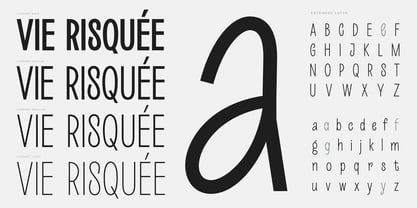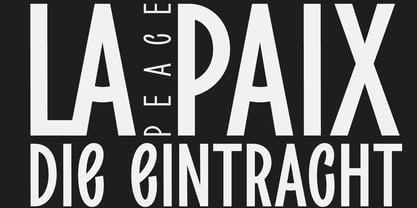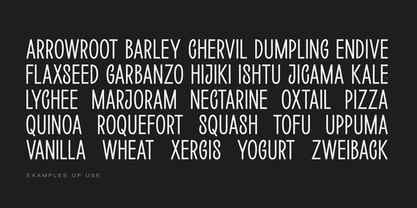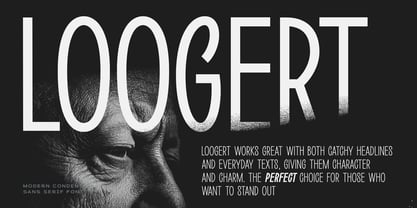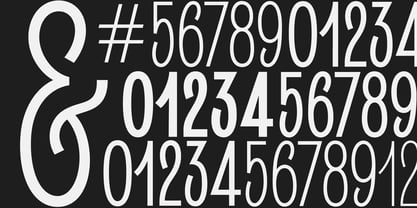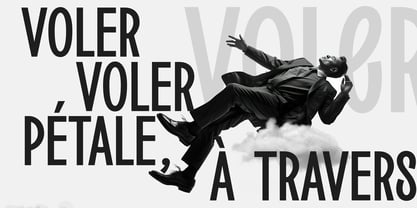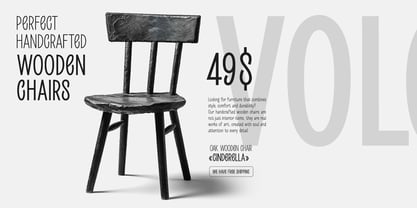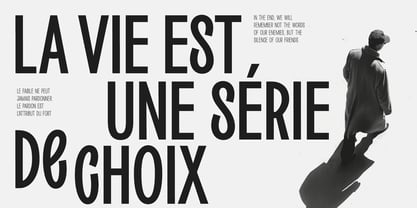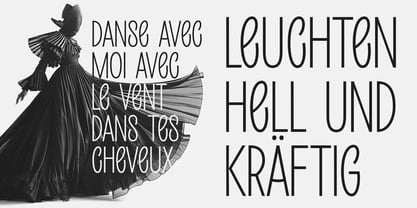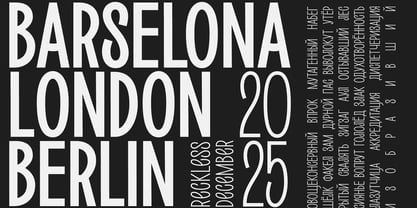
Loogert
von Oleg Gert
Die Schriftfamilie Loogert wurde von Oleg Gert entworfen und von Oleg Gert veröffentlicht. Loogert enthält 8 Stile und Familienpaketoptionen.
Loogert works great with both catchy headlines and everyday texts, giving them character and charm. The perfect choice for those who want to stand out. There are also rounded versions
Designer: Oleg Gert
Herausgeber: Oleg Gert
Foundry: Oleg Gert
Eigentümer des Designs: Oleg Gert
For over ten years I have been working as an art director in an advertising agency, coming up with creative concepts and implementing them, shooting commercials and inventing various design layouts, and in my free time I draw illustrations, for myself and to order. You can see my illustrations here: https://www.behance.net/gertVery often I was faced with the need to write by hand in my illustrations. So gradually I came to the conclusion that I created my own font for my work, for myself.Over time, I developed a true passion for creating fonts, enjoying working on each letter, as if sawing out their final shape. In my work, I often noticed that a beautiful font that was so suitable for any project did not have Cyrillic support, and I set myself the goal of creating any of my fonts to be guided by making it as multilingual as possible, in order to make it convenient for the maximum number of people from different countries.My goal is to create unique and well-designed fonts, I really enjoy creating letters and I hope that my fonts will help you in your creativity.